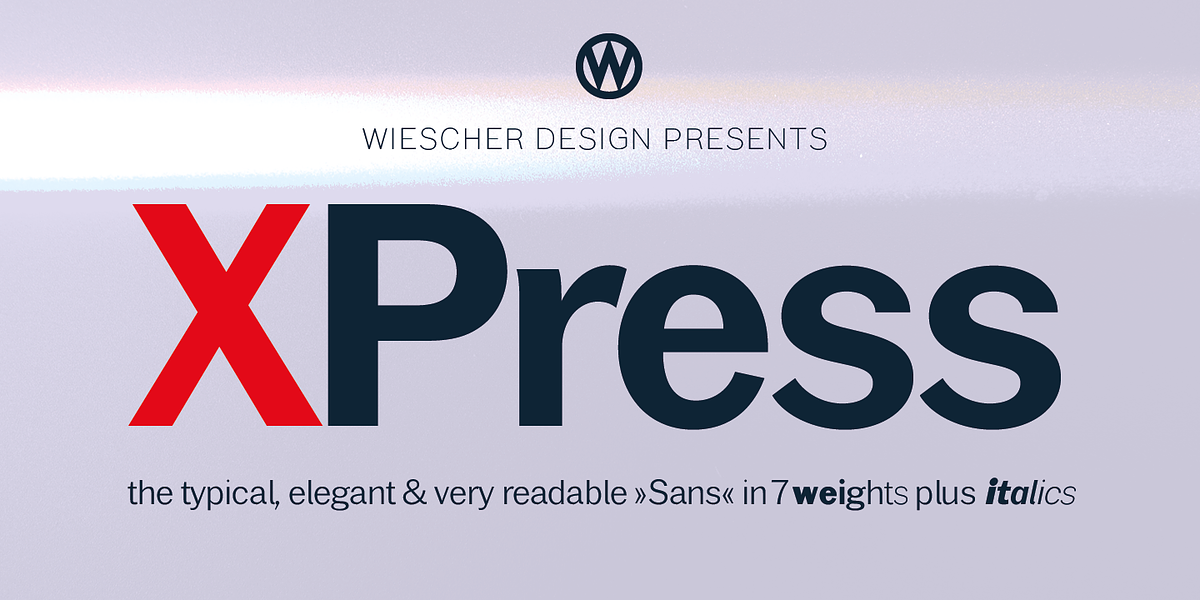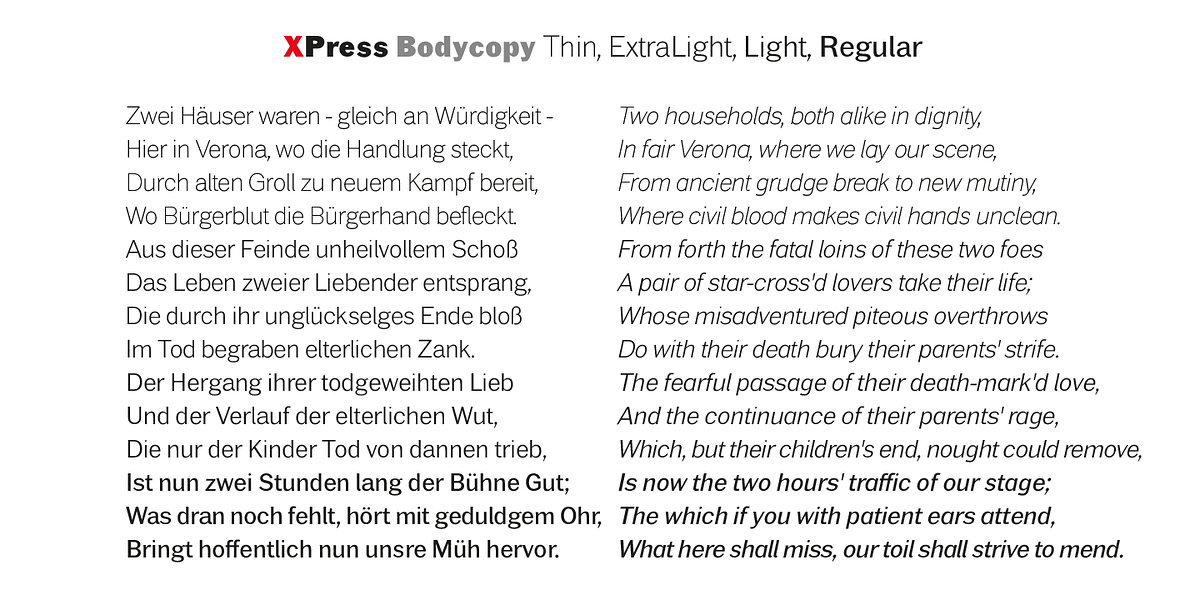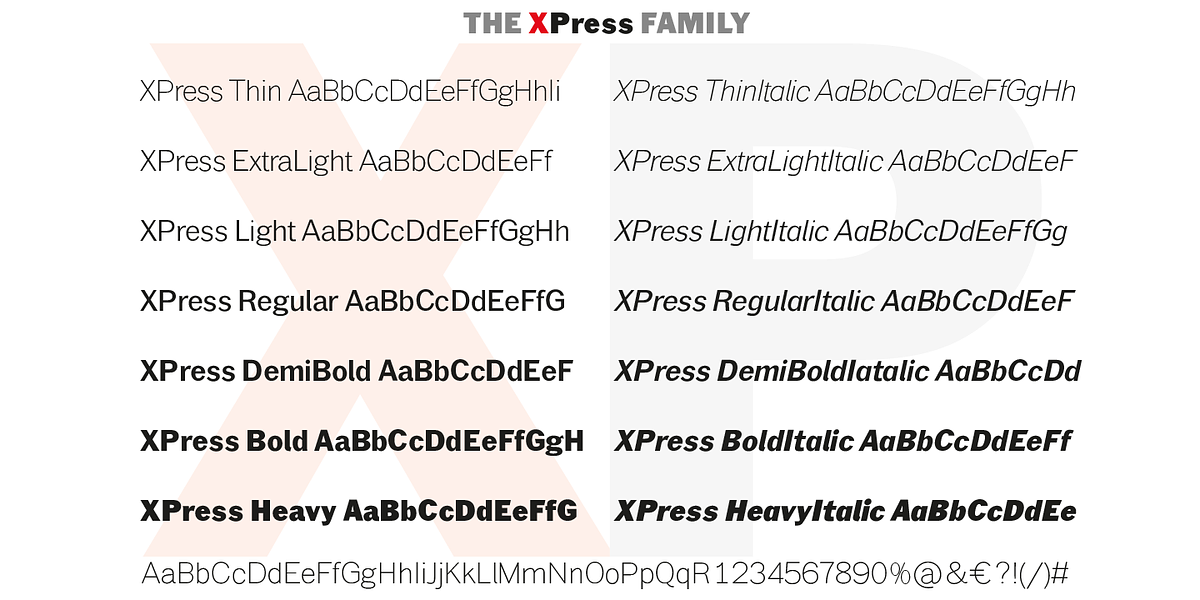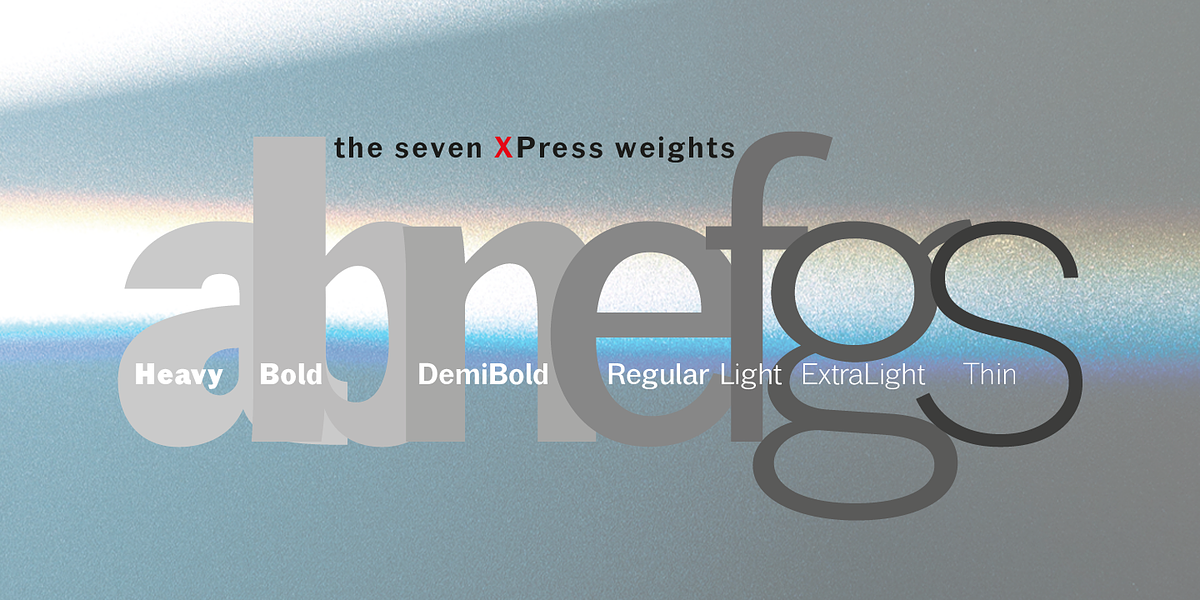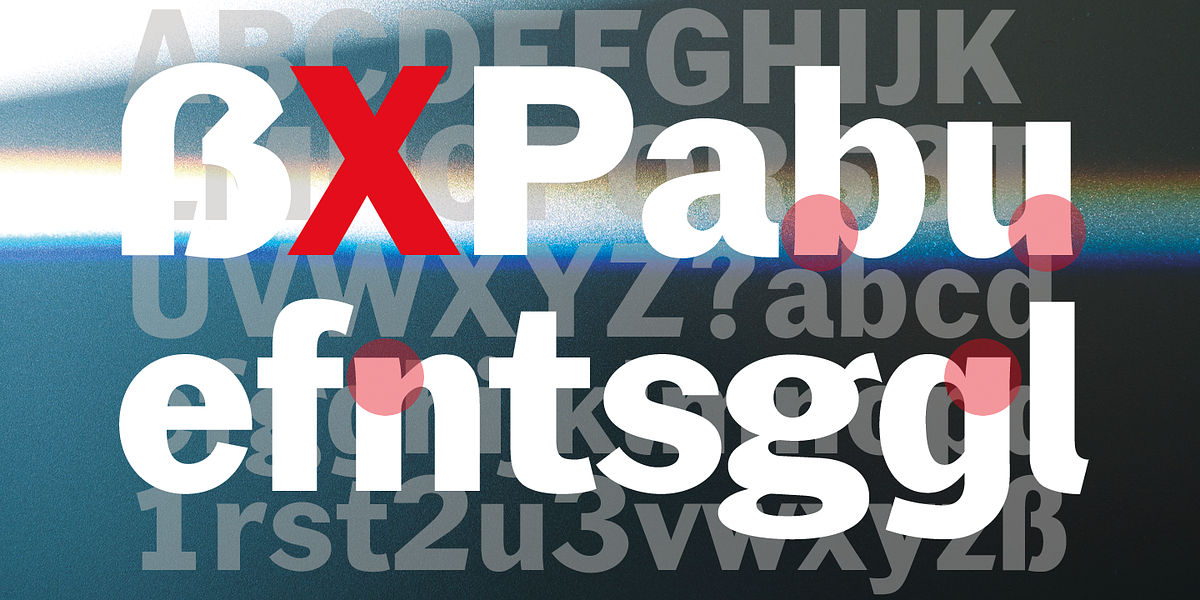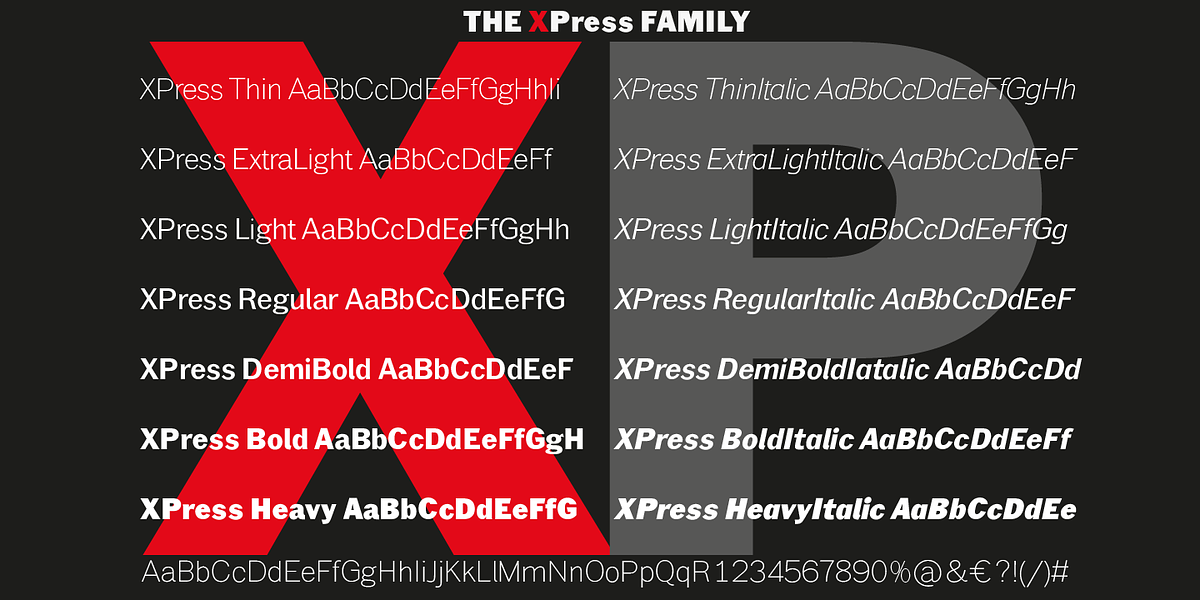
XPress
XPress is a modern sans-serif typeface inspired by American Gothic fonts popular in the 1920s. It features seven weights from Thin to Heavy, each with a corresponding italic. The font's design incorporates high lowercase letters and subtle, elegant curves in its strokes, making it highly legible, especially at smaller sizes. This versatility allows XPress to be effectively used for both body text and advertising applications.